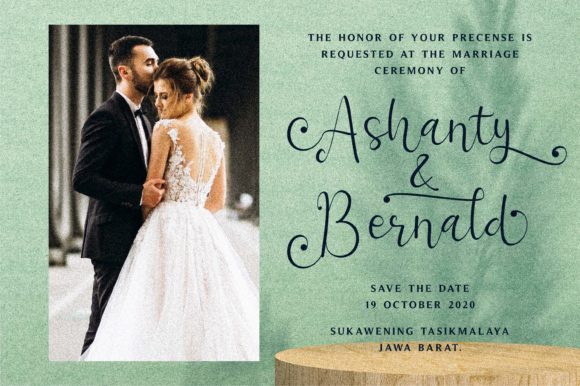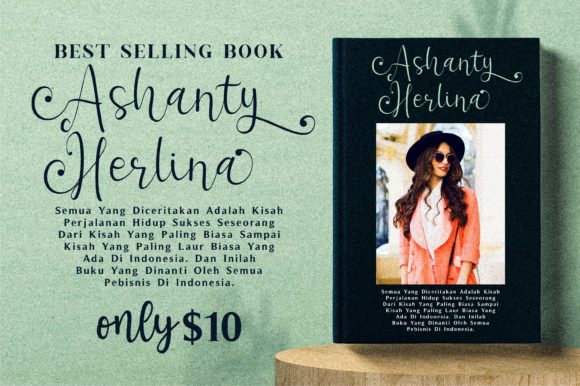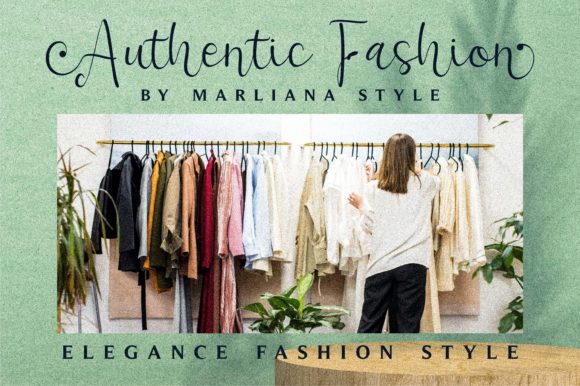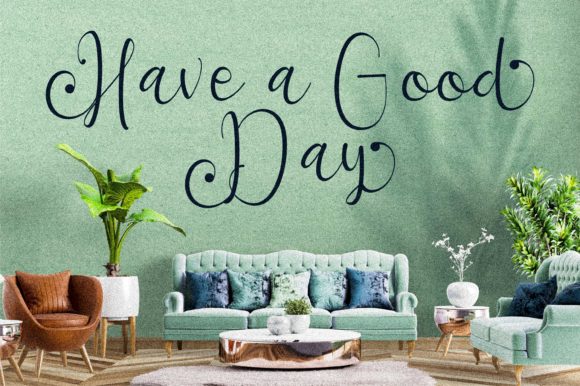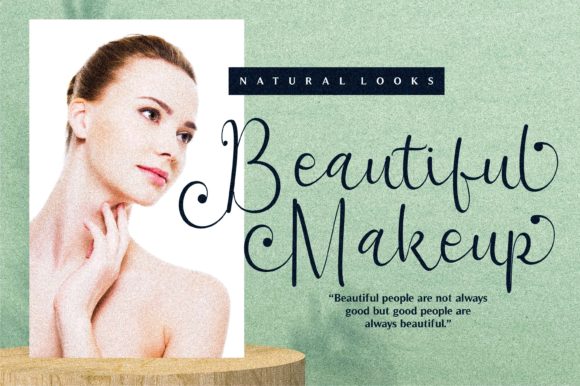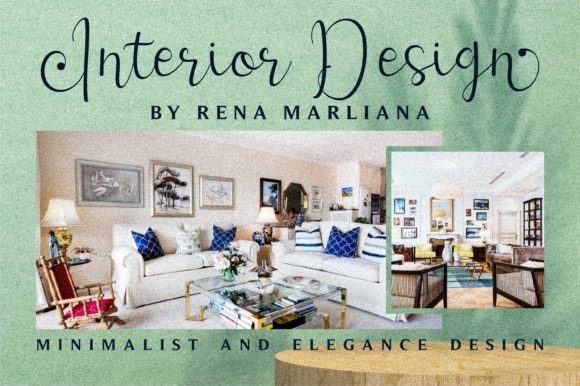
Introduction to Ashanty Herlina Font
Have you ever stared at a blank page, trying to bring a creative project to life? The blank canvas stares back, taunting you with its emptiness. But what if you had the perfect tool to break the silence? Enter the charming Ashanty Herlina Font, a script font that adds a touch of whimsy to your designs.
This free download is more than just a pretty face – it’s a design resource that can elevate your creative projects to the next level. With its PUA-encoded glyphs and swashes, you’ll have access to a world of creative possibilities. Whether you’re designing a logo, a wedding invitation, or a social media graphic, Ashanty Herlina Font is the perfect companion to help you bring your ideas to life.
Its transparent background and high-quality design make it a valuable addition to any designer’s toolkit. So why settle for a bland, generic font when you can add a dash of personality to your designs with Ashanty Herlina Font?
Key Features of Ashanty Herlina Font
- High-quality design resource for creative projects, ideal for use in digital art and graphic design.
- Transparent background, allowing for seamless integration with other design elements and images.
- Unique, elegant script font with a distinctive flair, perfect for adding a touch of sophistication to any design project.
- Designed with precision and care, ensuring a high level of detail and clarity, even at larger sizes.
Honest Review: Ashanty Herlina Font
I recently stumbled upon the Ashanty Herlina Font, and I’m excited to share my thoughts on this free download. As a designer, I’m always on the lookout for high-quality design resources that can elevate my creative projects.
- ✨ High-quality font with a unique aesthetic, perfect for adding a touch of elegance to any design
- ✨ Transparent background, making it easy to use in various design scenarios
- ✨ Great for creating eye-catching headings and titles
- ⚠️ Limited character set, which might not be suitable for lengthy texts
- ⚠️ Not as versatile as other fonts, which can be restrictive in certain design projects
Overall, I think the Ashanty Herlina Font is a great addition to any designer’s toolkit. While it may have some limitations, its unique style and high-quality design make it a valuable resource for creative projects. I’d definitely recommend it for designers looking to add a touch of sophistication to their work.
To get the most out of the Ashanty Herlina Font, try experimenting with different font sizes and styles to create a unique look for your design project. You can also combine the font with other design elements, such as images or graphics, to create a visually appealing and high-quality design.
The Ashanty Herlina Font is commonly used in a variety of design projects, including branding, marketing materials, and creative projects. Its unique design and high-quality features make it an ideal choice for designers looking to add a touch of creativity and professionalism to their designs.